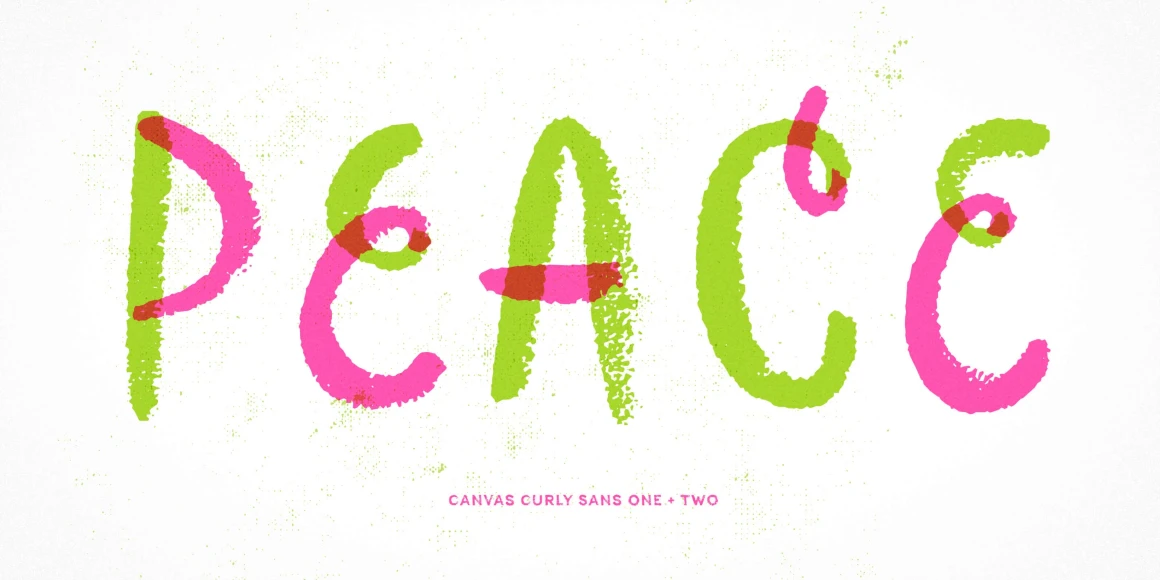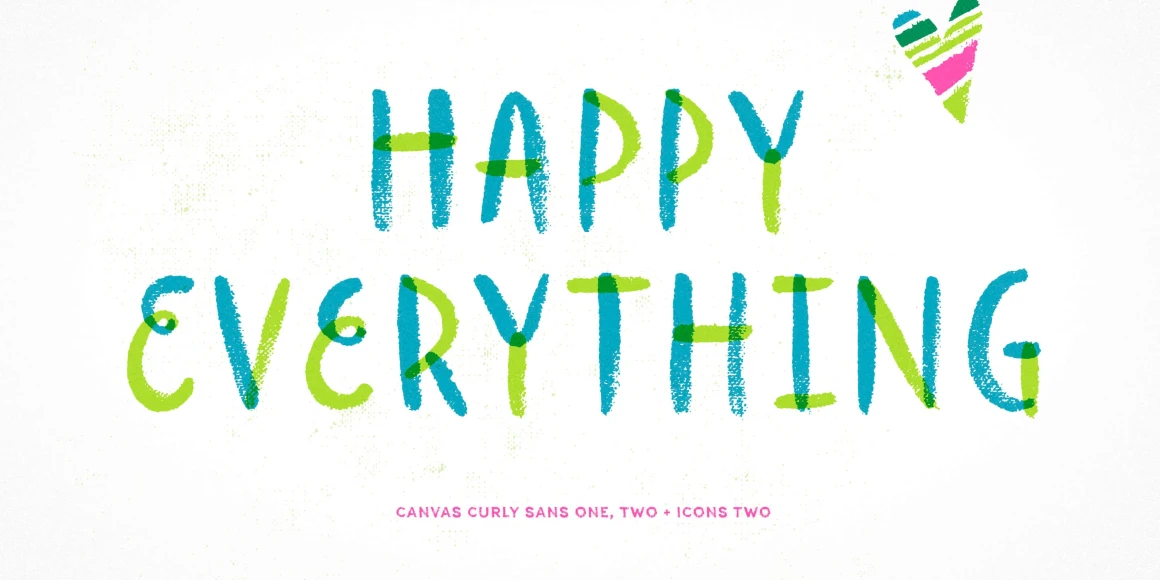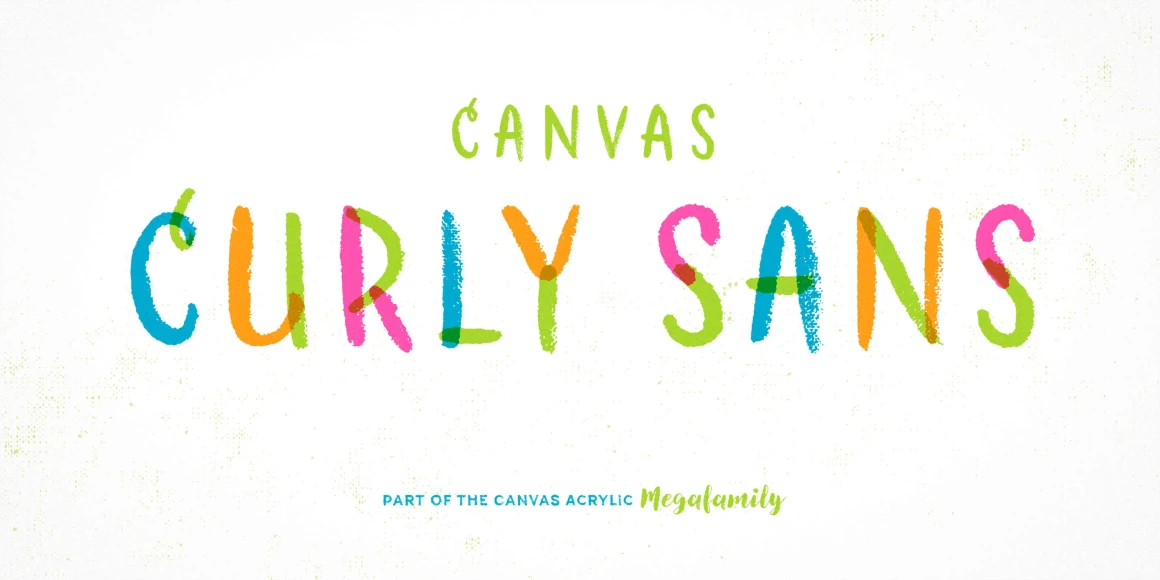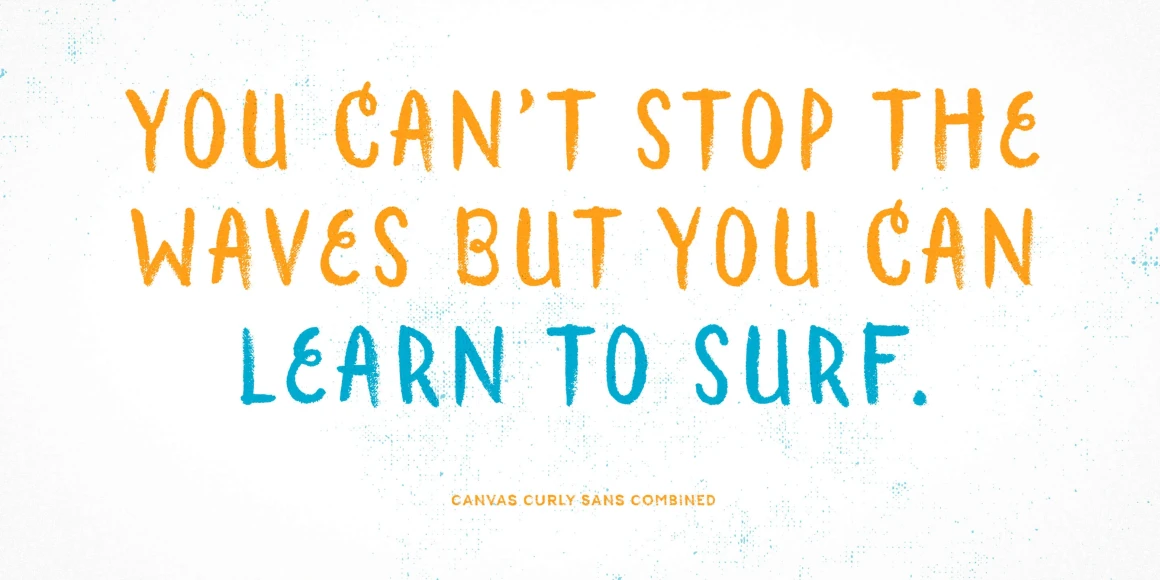
Canvas Curly Sans
Canvas Curly Sans Combined
Canvas Curly Sans One
Canvas Curly Sans Two
Canvas Curly Sans is part of the Canvas Acrylic Megafamily. It’s playful and sincere with unique layering options. With authentic, hi-res texture it retains its realism even at very large sizes. Canvas Curly Sans has double-letter ligatures that automatically fix adjacent duplicate letters. A bonus set of complimentary vector background textures, shapes and elements is available from the site.